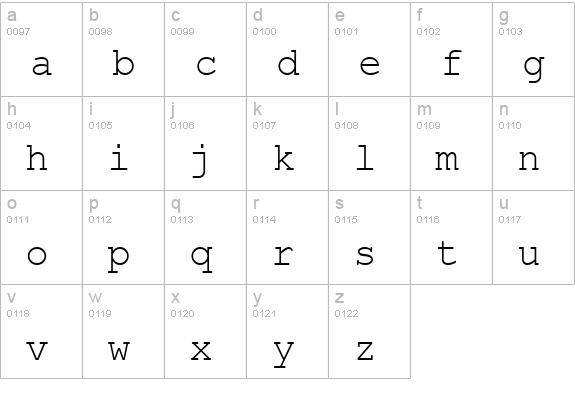
Courier New is a classic monospaced font that exudes professionalism and clarity. Its clean, simple lines make it perfect for any project requiring a no-nonsense approach to typography. The timeless appeal of Courier New is evident in its use in various contexts, from technical documents to academic papers. With its fixed-width characters and easy readability, Courier New is a go-to choice for anyone looking to convey information clearly and consistently. And the best part? Courier New is available for free download at FontsMarket.com. Take advantage of this opportunity to enhance your design projects with the reliable and versatile Courier New font. Download it now and see the difference it can make in your work!